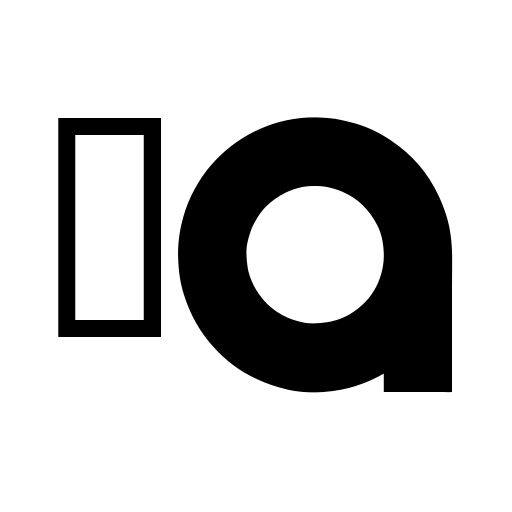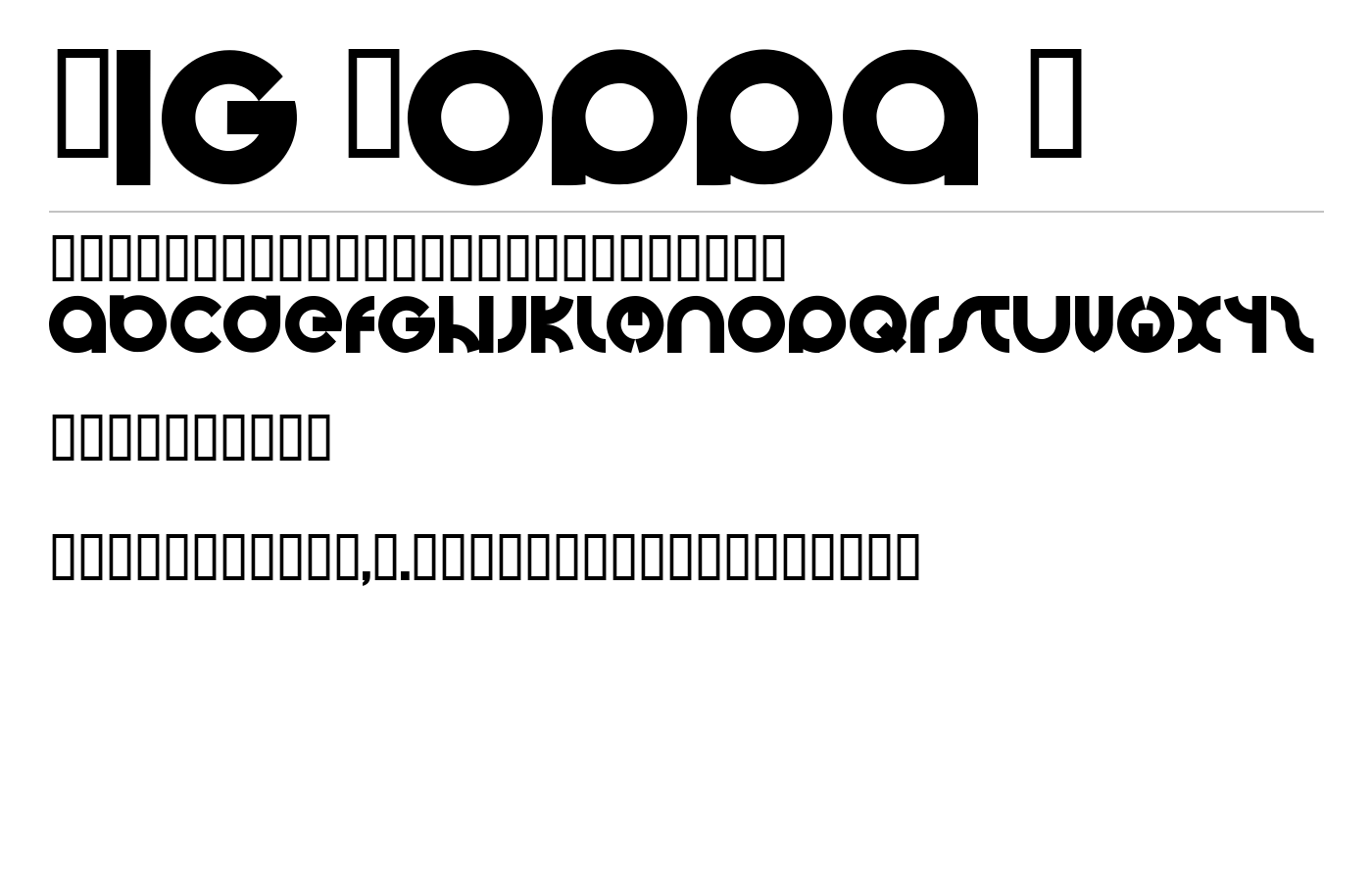
Big Poppa E is a bold, geometric sans serif font with a modern and playful vibe. Its heavy weight and strong circular shapes create a distinctive, eye-catching look, ideal for headlines, logos, and creative branding. This font works best where a statement is needed, combining simple forms with quirky, unique letter details that add personality and style.
Big Poppa E Font
About Big Poppa E Font
| Font family | Big Poppa E Font |
| Designer | Adrien Sulliven Dredd |